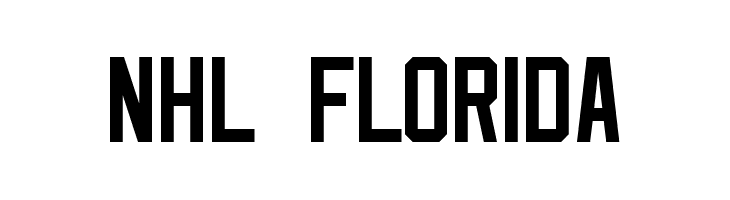
A clean, modern font with balanced spacing and clear characters.
A modern, geometric typeface with uniform stroke width and clean lines.
A clean, modern font with balanced spacing and clear characters.